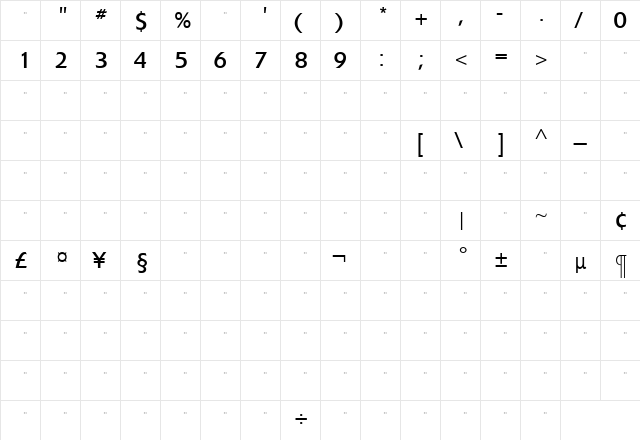
ExtensionBookTab Roman
Design Context for ExtensionBookTab Typeface
ExtensionBookTab offers clean, dependable letterforms without strong stylistic allegiance, making it a practical choice for designers who need flexibility.